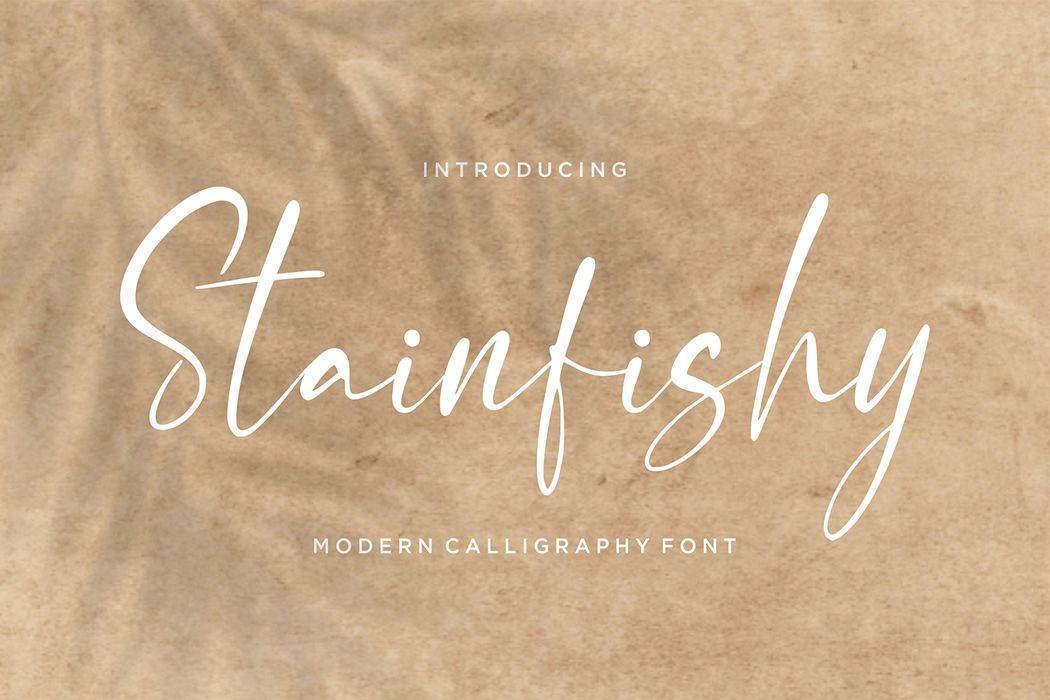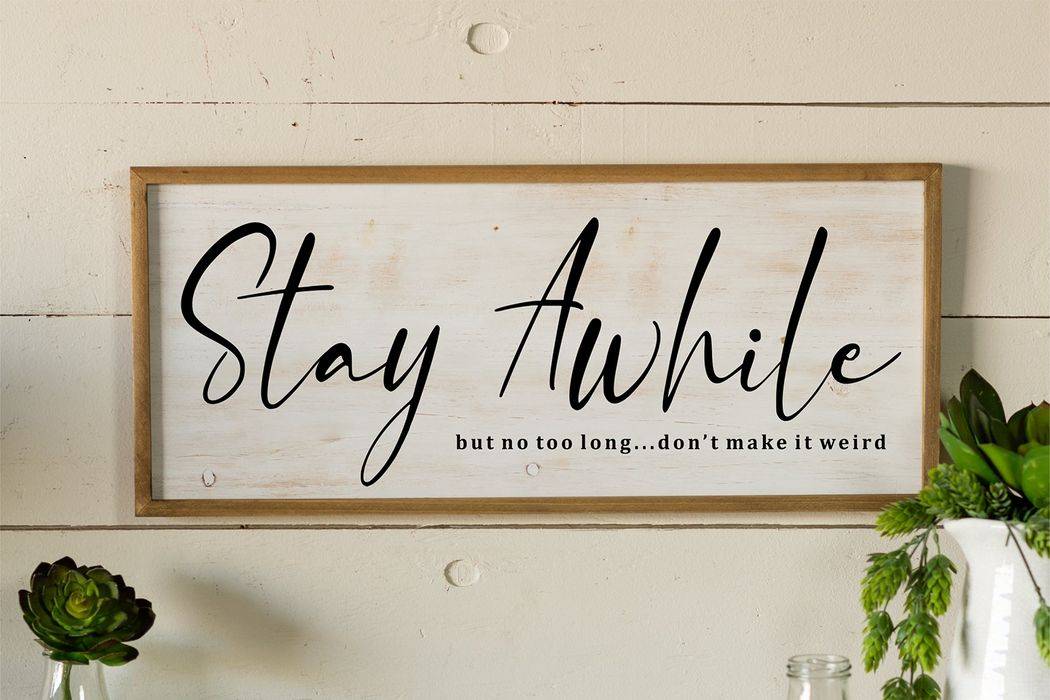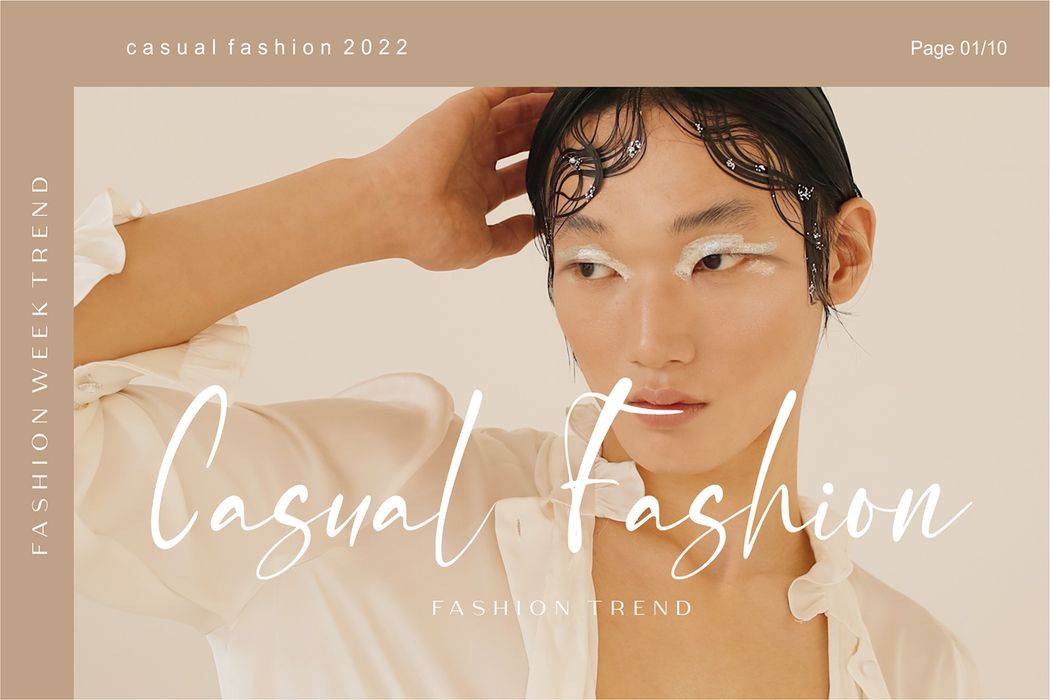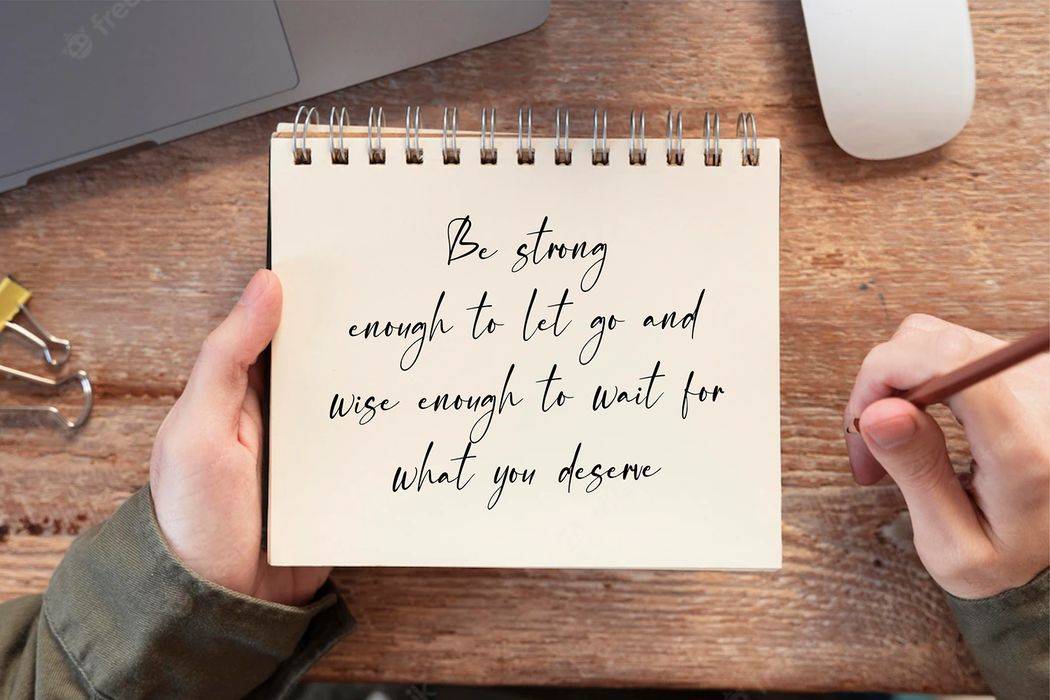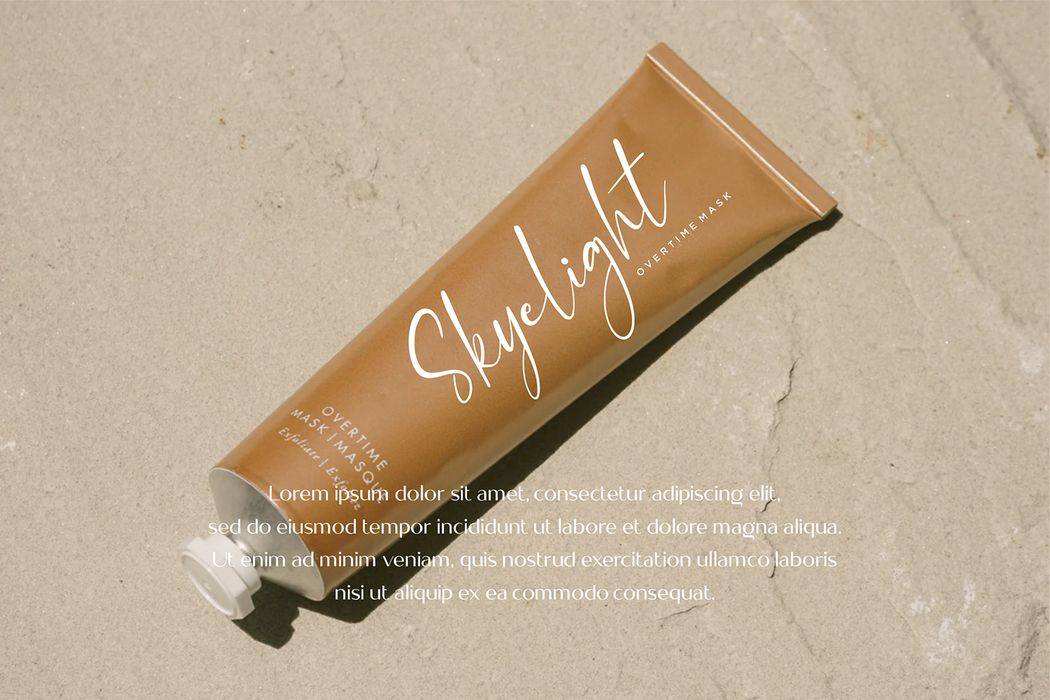
Stainfishy is a delicate, script-style font with a hand-drawn, calligraphic feel, characterized by its slender, flowing strokes and elegant, slightly irregular letterforms. Its light weight and tall, narrow proportions give it a graceful, airy appearance, making it ideal for creative and feminine branding, invitations, and artistic projects that seek a personal, stylish touch. This font works best in headlines or decorative text where its distinctive charm and refined personality can shine.
Stainfishy Font
About Stainfishy Font